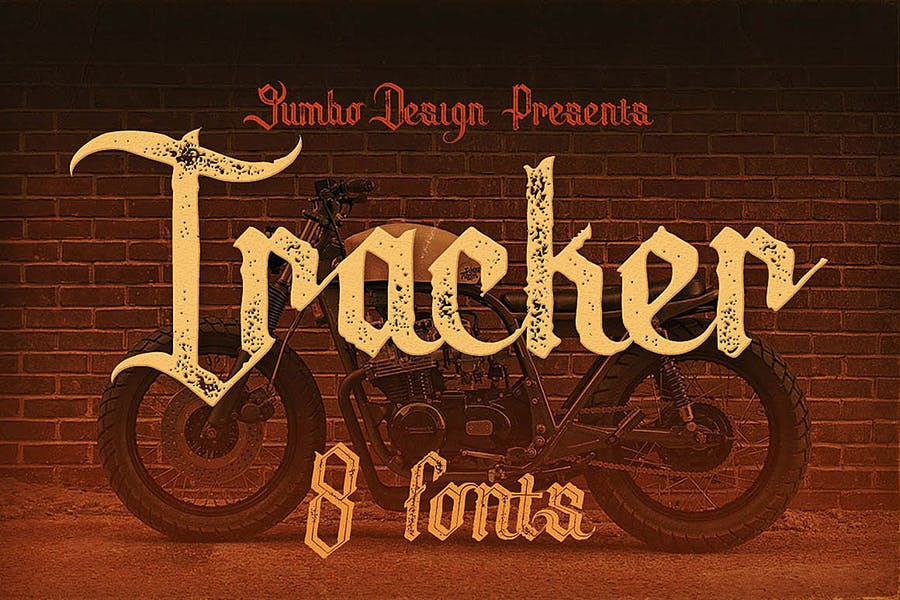
Tracker - Vintage Style Font
Tracker - Vintage Style Font is perfect for outdoor adventure branding, wilderness expedition logos, vintage hunting lodge signage, survival gear packaging, frontier-themed restaurants, outdoor equipment catalogs, national park materials, camping supply stores, rugged lifestyle brands, heritage trail markers, explorer documentary titles, and authentic wilderness storytelling projects.
Tracker - Vintage Style Font is exciting because it captures the rugged determination and timeless wisdom of experienced wilderness guides with weathered letterforms that seem carved by countless expeditions through untamed landscapes, perfectly embodying the self-reliant spirit and navigation expertise of those who find their way through nature's challenges.
The Tracker - Vintage Style Font family includes expedition variations: Regular, Bold, Distressed, Stencil, Weathered, and Trail-worn styles, providing designers with a complete wilderness typography toolkit to create authentic compositions that honor the heritage of exploration and the enduring appeal of outdoor adventure.
The font's expertly weathered letterforms reflect the hardened experience and practical wisdom that come from countless miles on wilderness trails, with strong foundational strokes and time-tested proportions that suggest reliability, endurance, and the proven ability to guide others safely through challenging terrain.
Tracker - Vintage Style Font excels in creating memorable brand experiences for businesses in outdoor recreation, survival training, and wilderness adventure sectors. Its authentic presence transforms ordinary communications into trusted guidance that resonates with audiences seeking genuine outdoor expertise and time-tested wilderness wisdom.
Professional designers appreciate how Tracker - Vintage Style Font maintains authentic outdoor character while providing exceptional functionality across diverse adventure applications. The comprehensive style range ensures optimal performance from intimate trail maps to massive outdoor gear catalogs, maintaining consistent wilderness authenticity and explorer credibility.
This remarkable typeface brings instant outdoor authority to adventure ventures and wilderness-focused businesses. From guided expedition services to outdoor gear manufacturers, Tracker - Vintage Style Font creates lasting impressions that communicate expertise, reliability, and the invaluable wisdom gained through years of wilderness experience.